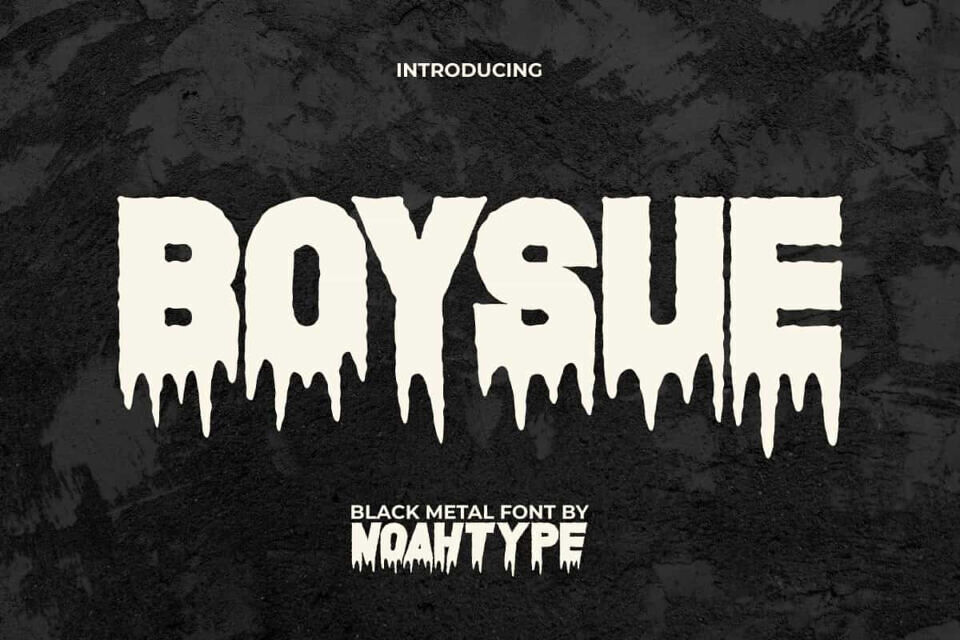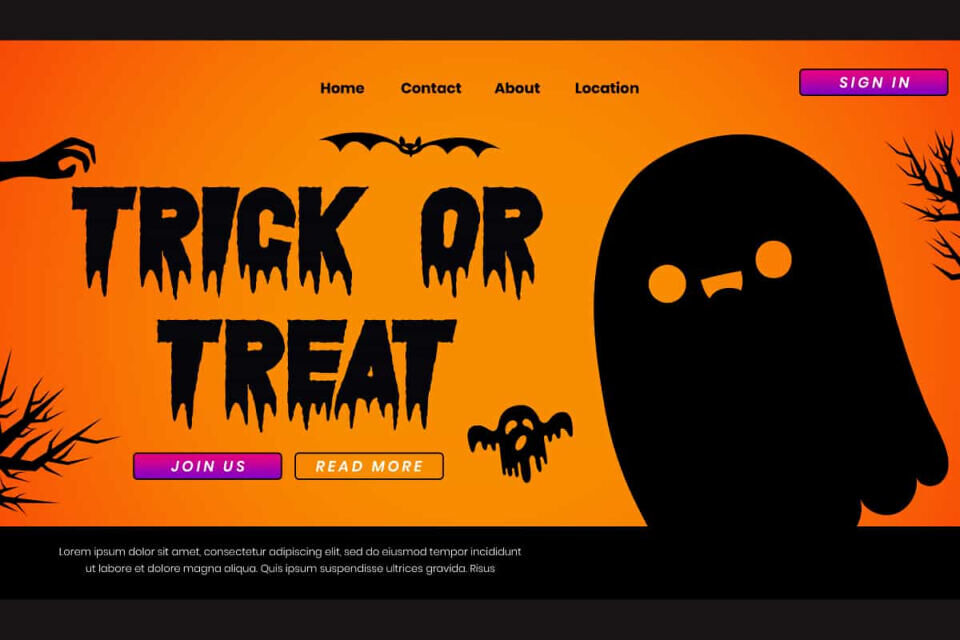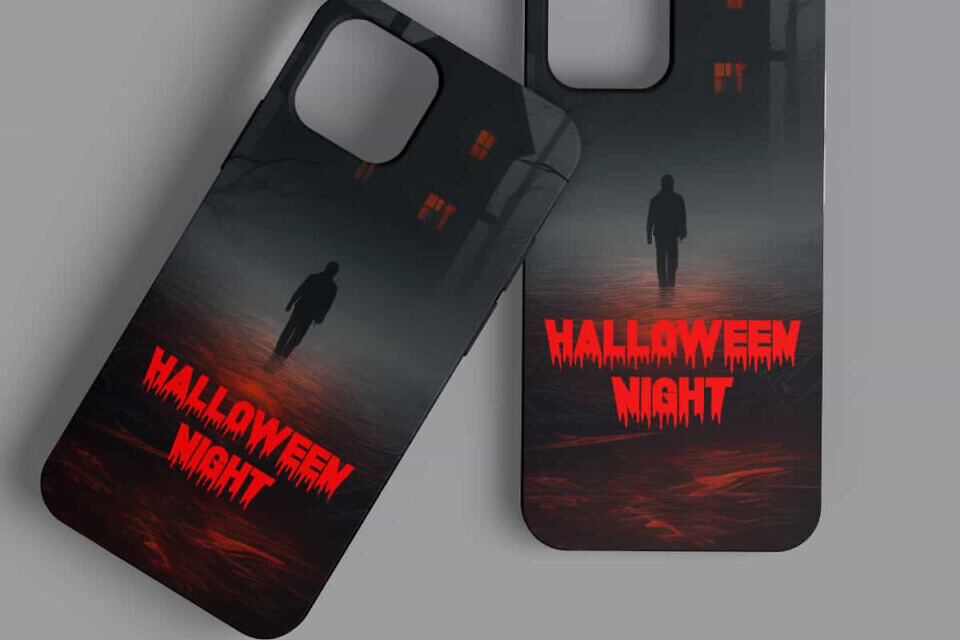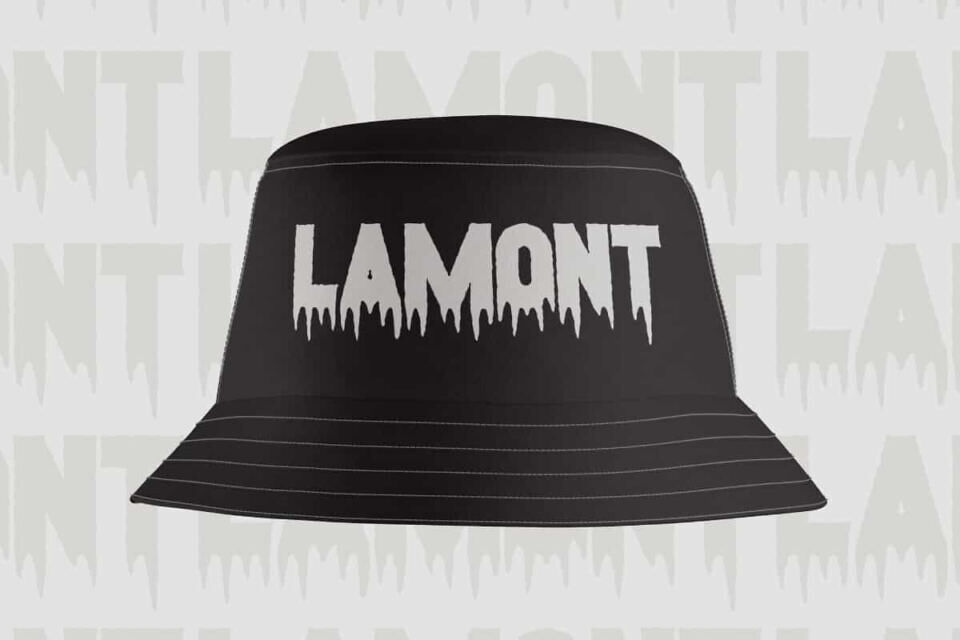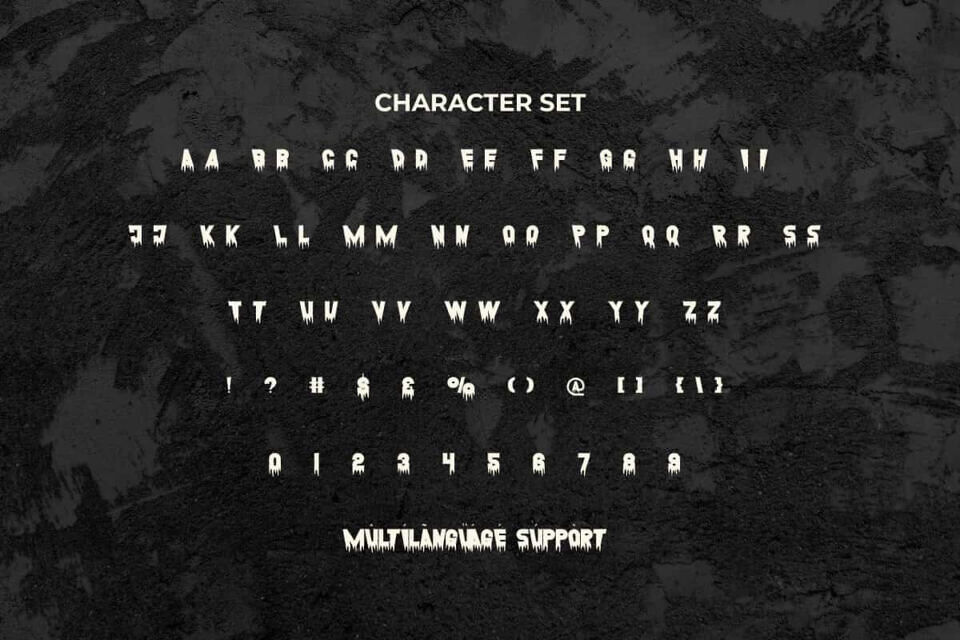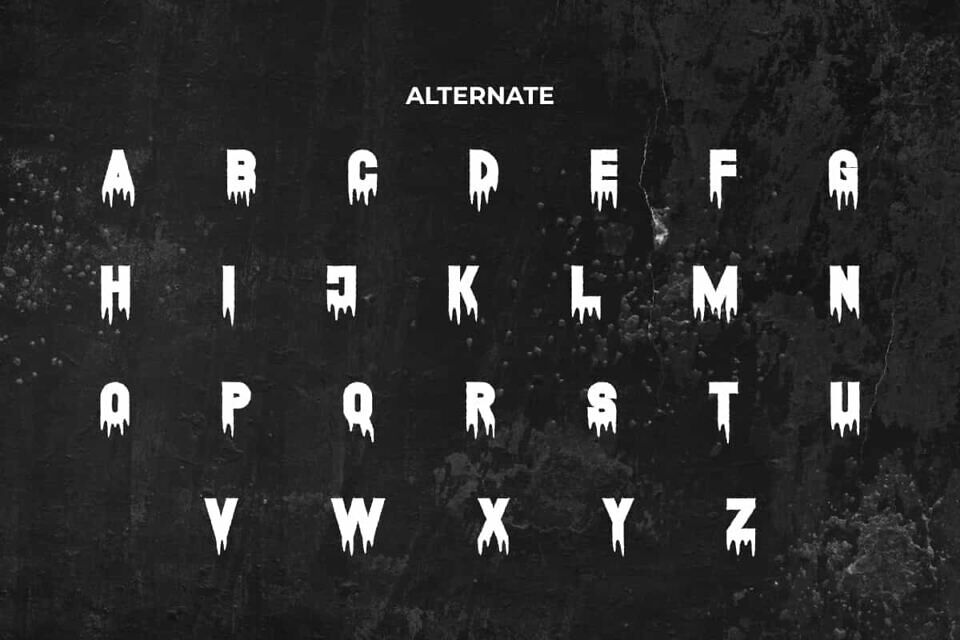
Boysue Font is a black metal font with playful and creepy touch created by NoahType. This font has a cartoon-like style with the addition of ink droplets under each character to make it look spooky. It will be perfect for any designs, such as custom design, brand image, cover, invitation, label, marketing material, menu, poster, printing, product packaging, quotes, signage, website, and many more!
Boysue Font includes full set of ALL CAPS for Uppercase and Lowercase Basic Characters, Numerals, Punctuation, Symbol, and Alternate character. This font will make your design standout and also a perfect choice for many industries, such as game, movie, accessories, advertising, art, café, event or festival, fashion, printing, publishing, etc.